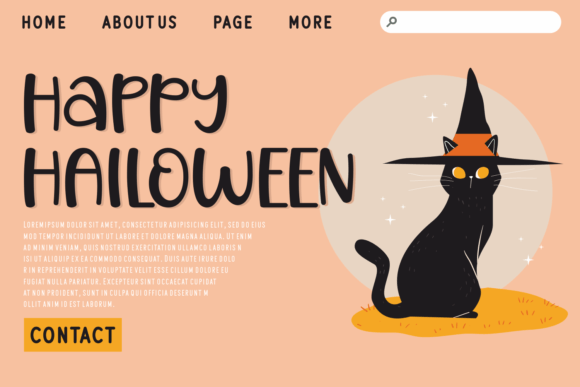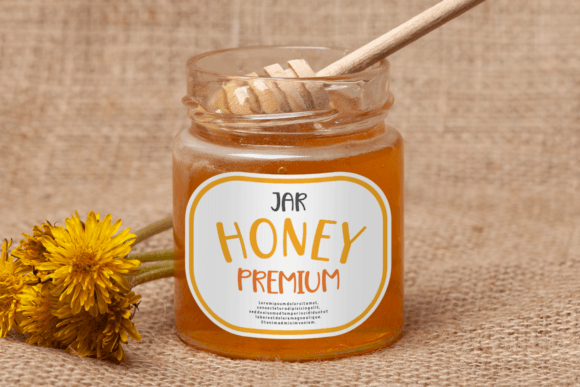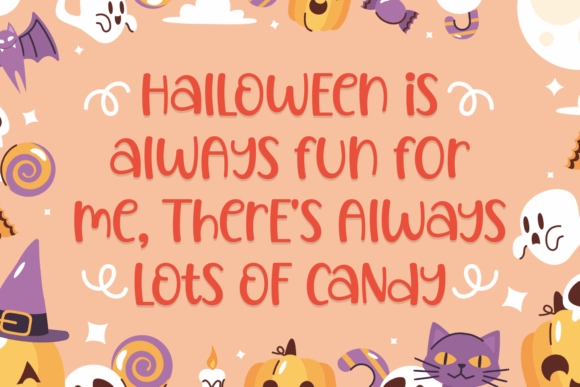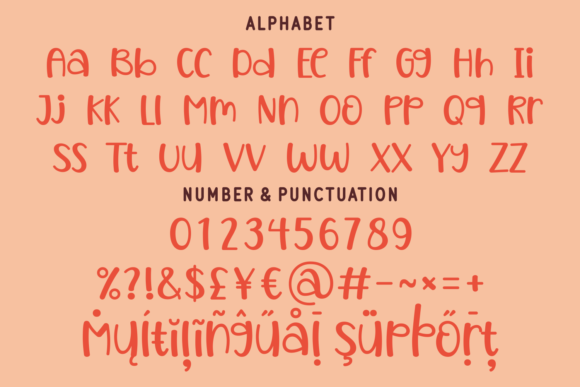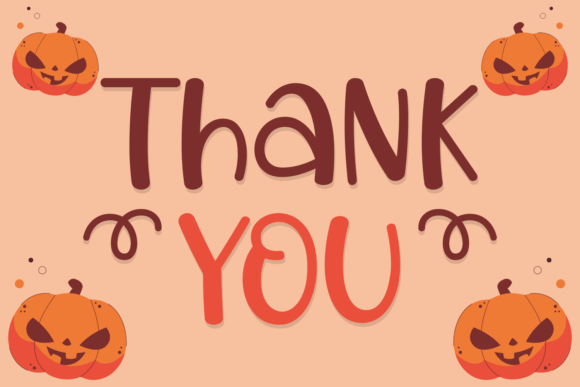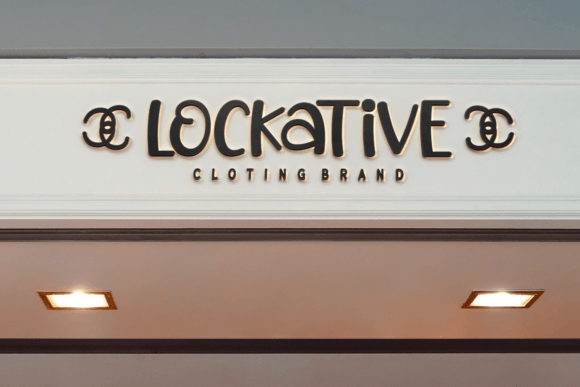
**Creepy Sneaky: A Playful Handwritten Font for Lively Typography**
Meet **Creepy Sneaky**, a font that embodies fun and playfulness, making it a perfect choice for projects that require lively typography. Whether you’re working on Halloween posters, party invitations, eye-catching banners, or distinctive branding, this font adds a touch of whimsy and creativity to your designs.
The charm of **Creepy Sneaky** lies in its quirky and hand-drawn letterforms. Each character exudes a sense of liveliness and spontaneity, giving your projects a unique and playful edge.
For Halloween posters, **Creepy Sneaky** is your secret ingredient for capturing the spooky yet fun essence of the season. Its playful demeanor can turn ordinary designs into something delightfully eerie and entertaining.
Party invitations become even more exciting with this font. It sets the tone for a lively and enjoyable gathering, making sure your guests are in for a fantastic time.
Banners adorned with **Creepy Sneaky** stand out with their bold and spirited typography. Whether you’re promoting an event or showcasing a product, this font adds an element of excitement that grabs attention.
Branding projects also benefit from the font’s playful charm. It adds a touch of creativity and originality to your visual identity, ensuring that your brand stands out in a memorable way.
In essence, **Creepy Sneaky** is more than just a font; it’s a creative tool that injects energy and fun into your projects. Whether you’re designing for Halloween, parties, banners, branding, or any other endeavor that demands lively typography, this font is your lively companion. Embrace the whimsy of **Creepy Sneaky** and let your creativity shine in all its playful glory.